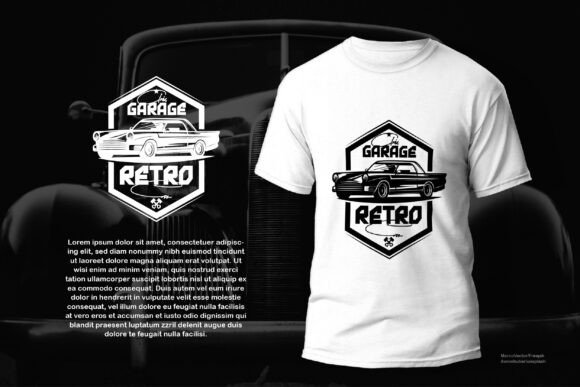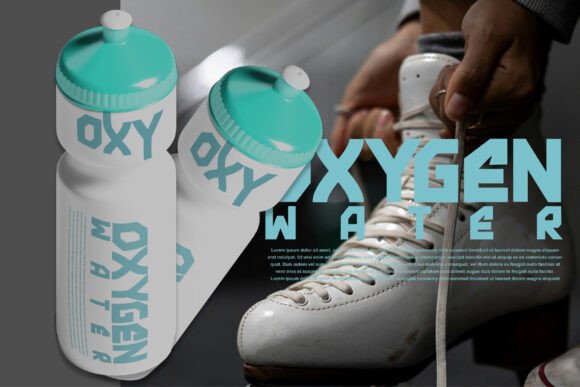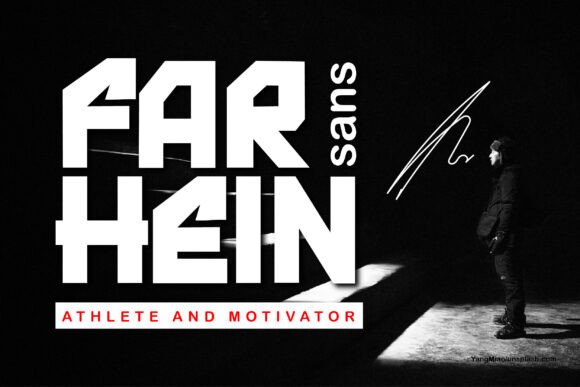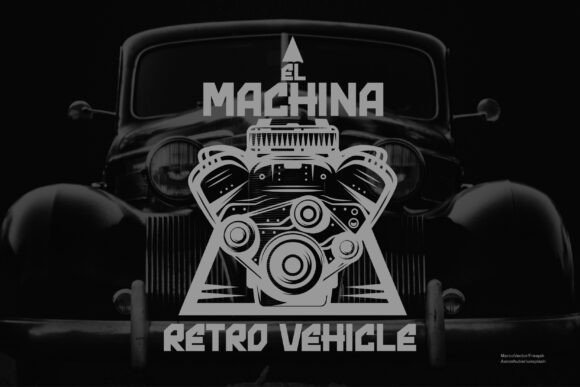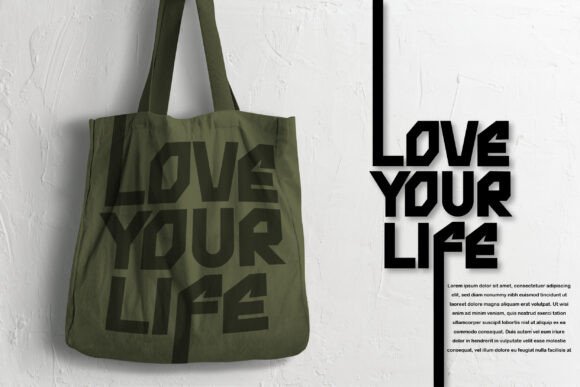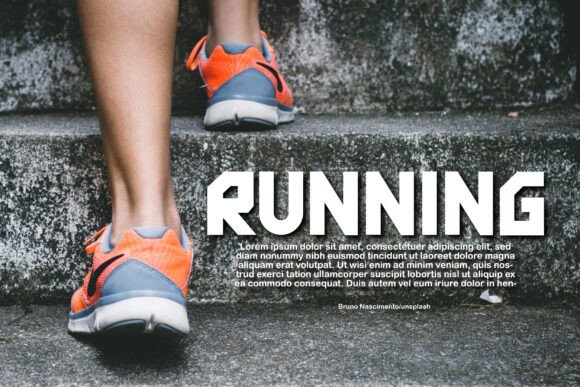
Ice Skater Font – Free Download
Introduction to Ice Skater Font
This tightly packed sans-serif font is the perfect blend of contemporary aesthetics and streamlined simplicity.
Its elegant style and condensed frame bring a vibrant element to any creative endeavor Discover the refined flexibility of Ice Skater, brilliantly designed to deliver striking statements in confined spaces.
Key Features of Ice Skater Font
Why Choose Ice Skater Font?
Ice Skater Font offers exceptional quality and versatility, making it a valuable addition to your design toolkit. Whether you’re creating for personal projects or commercial use, Ice Skater Font delivers professional results.